I'm using fluxbox. I've noticed that the TTF fonts are quite blurry (particularly in GVim):
Here's an example, using Inconsolata 12pt in Fluxbox:
Here's the same example, using Inconsolata 12pt, except in Unity:
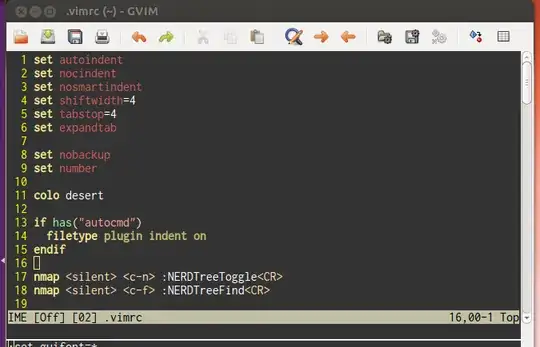
You can see that not only is the text easier to read in the Unity case, it's also larger. The font colors look faded in the fluxbox case as well. What I would like to ask is:
1. How can I make the font under Fluxbox look the same as under Unity? It looks as if Fluxbox isn't getting the font sizes quite right and doing excessive antialiasing.
2. Why are the fonts being rendered at different sizes? I thought 12pt should look the same in every environment (on the same hardware).
I'm using an LCD, so my font settings under gnome-tweak-tool are:
• Hinting: slight
• Antialiasing: RGBA
Here are my DPI settings (same under Fluxbox and Unity):
EDIT
Problem solved after editing .Xresources. Before:
After:
This looks like a different handling of font hinting/aliasing from Fluxbox vs. GNOME/Unity.
According to the Fluxbox Wiki (untested as we do not run Fluxbox here) we can define font settings by creating a ~/.Xresources file in our HOME where font rendering can be defined with the following entries (amongst many others):
It seems that gnome terminal (I suposse thats what you're using) has some font configuration in preferences that adds shades, because thats the only difference I can tell from the pictures.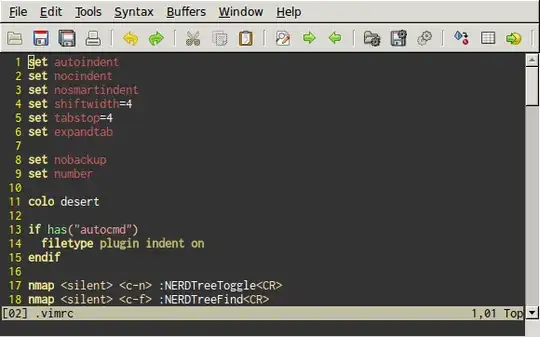